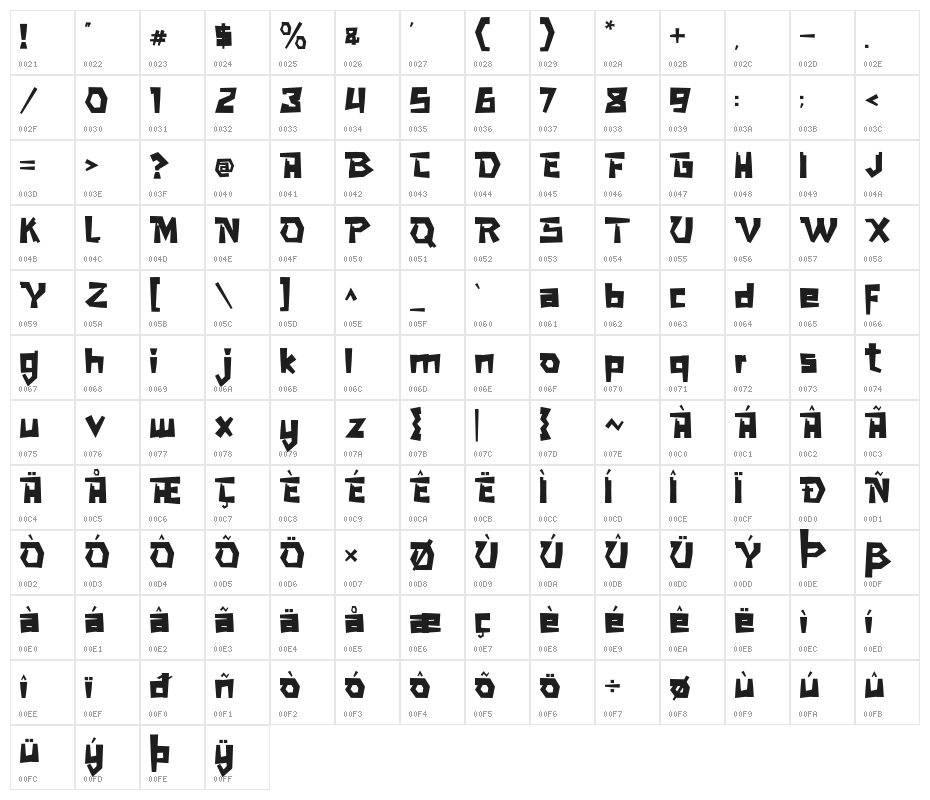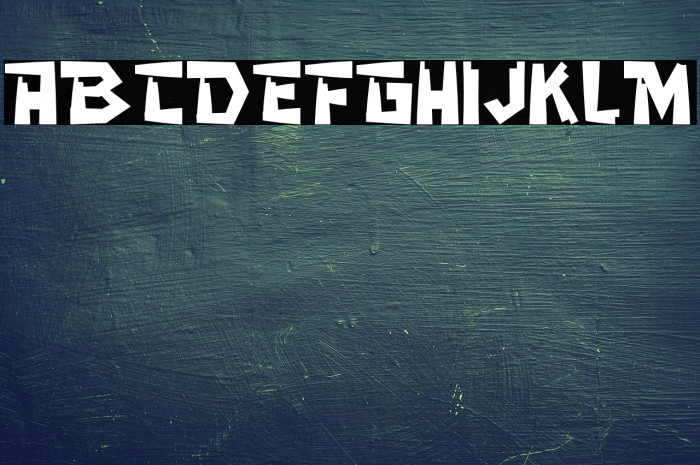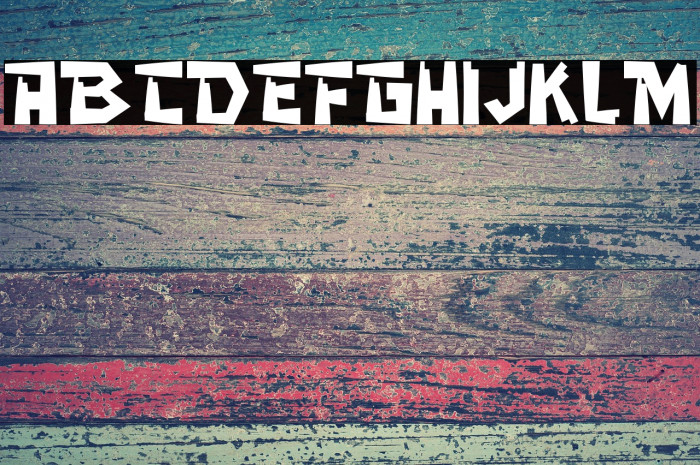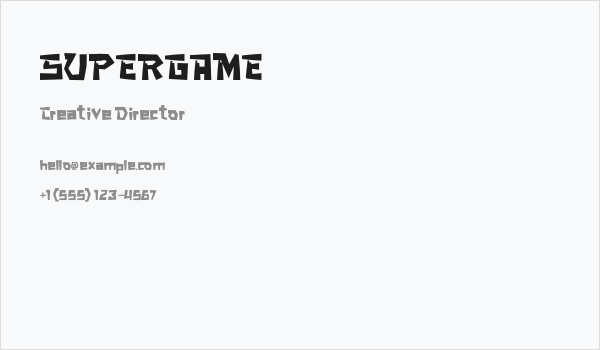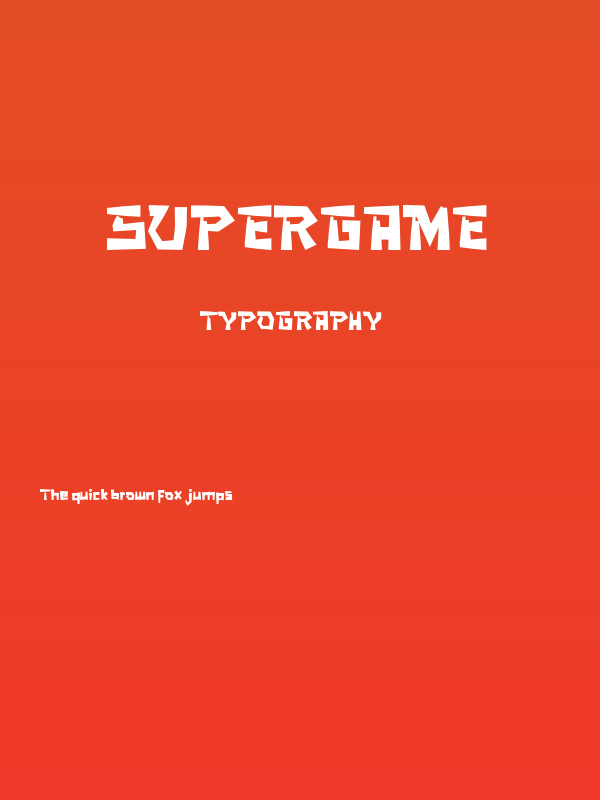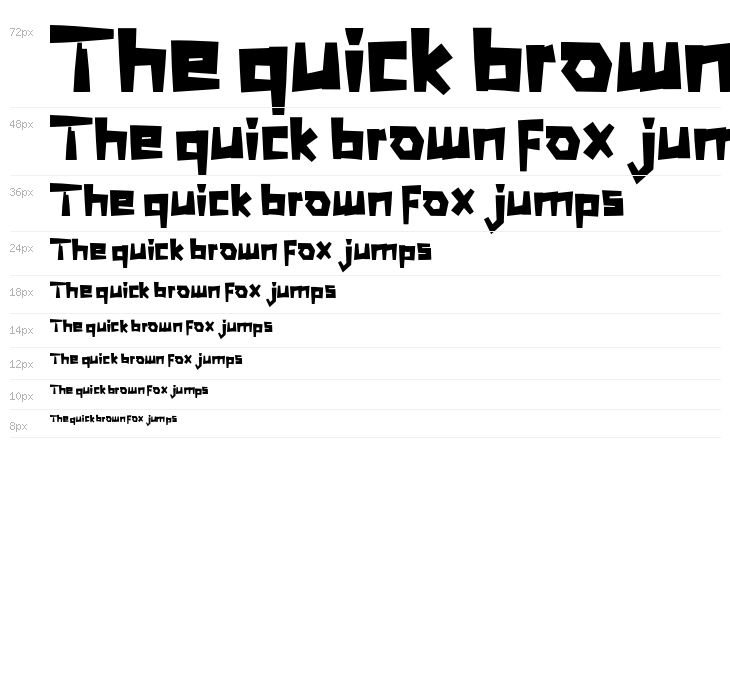
SUPERGAME Font
SUPERGAME Description
This font features a bold, angular design with a distinctly geometric and edgy appearance. The characters are crafted with sharp, irregular edges that give them a dynamic and energetic feel. The uppercase and lowercase letters maintain a consistent style, with the uppercase being slightly more pronounced. Numbers and special characters follow the same angular theme, ensuring a cohesive look across all glyphs. The font's unique style makes it stand out, ideal for projects that require a strong visual impact.
Proposed ProjectsIdeal for video game titles, posters, branding for extreme sports, or any project needing a bold, impactful typeface.